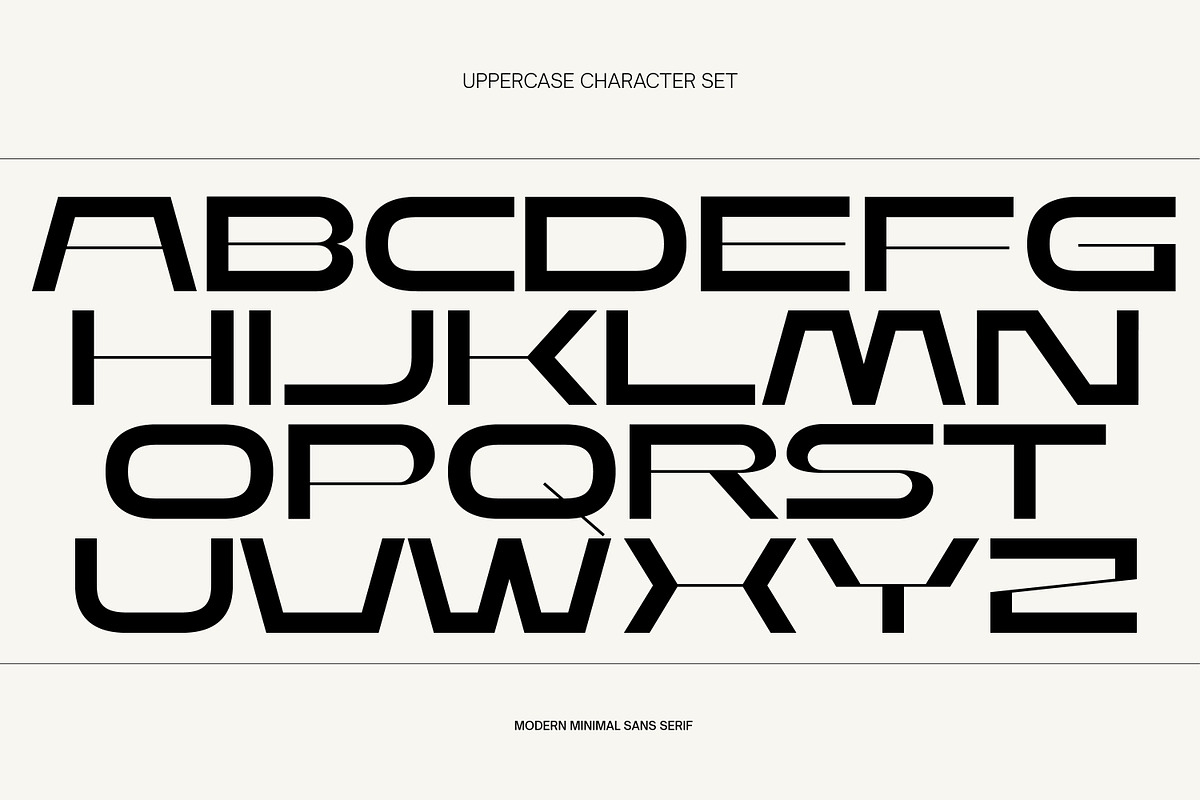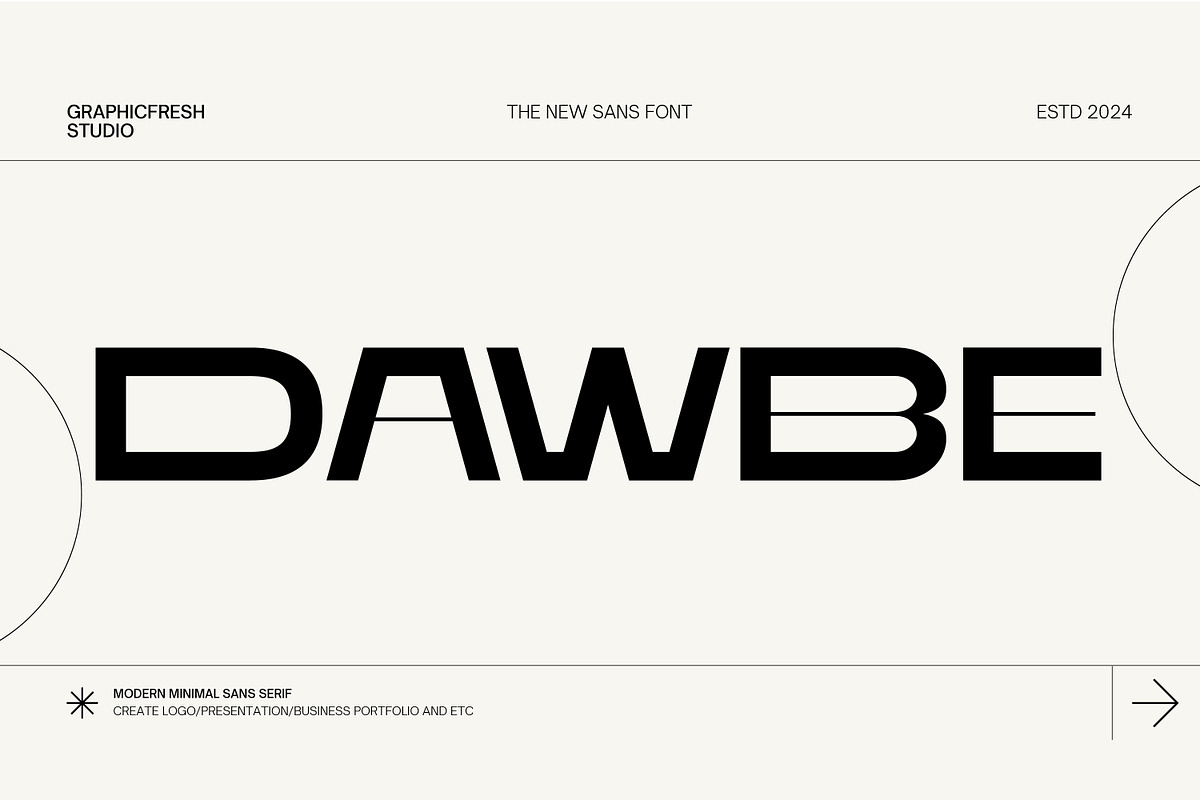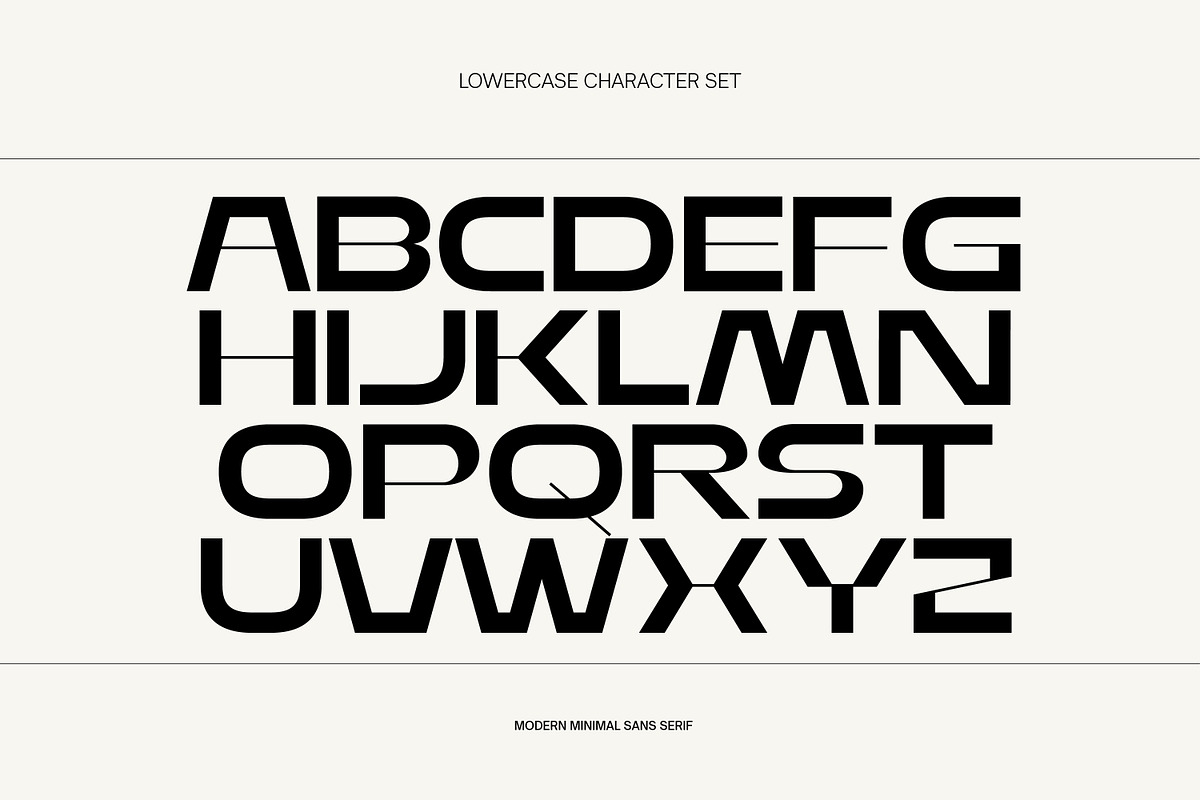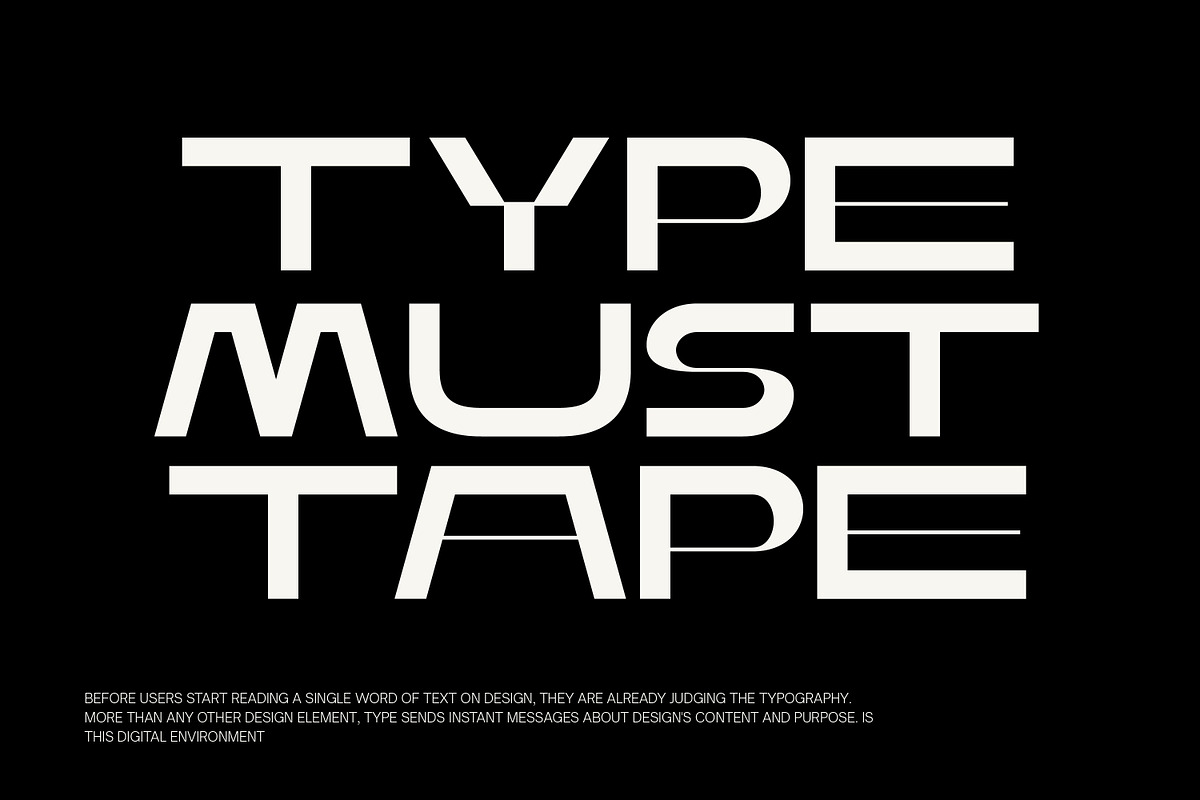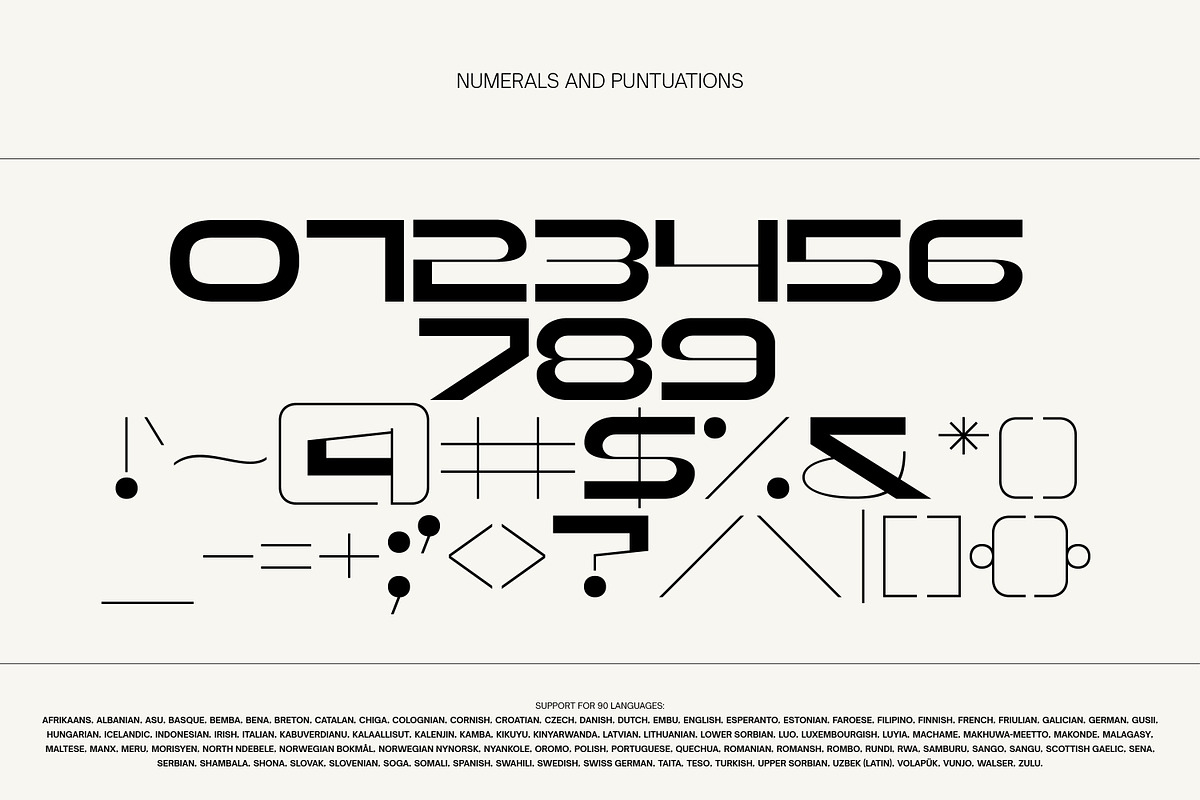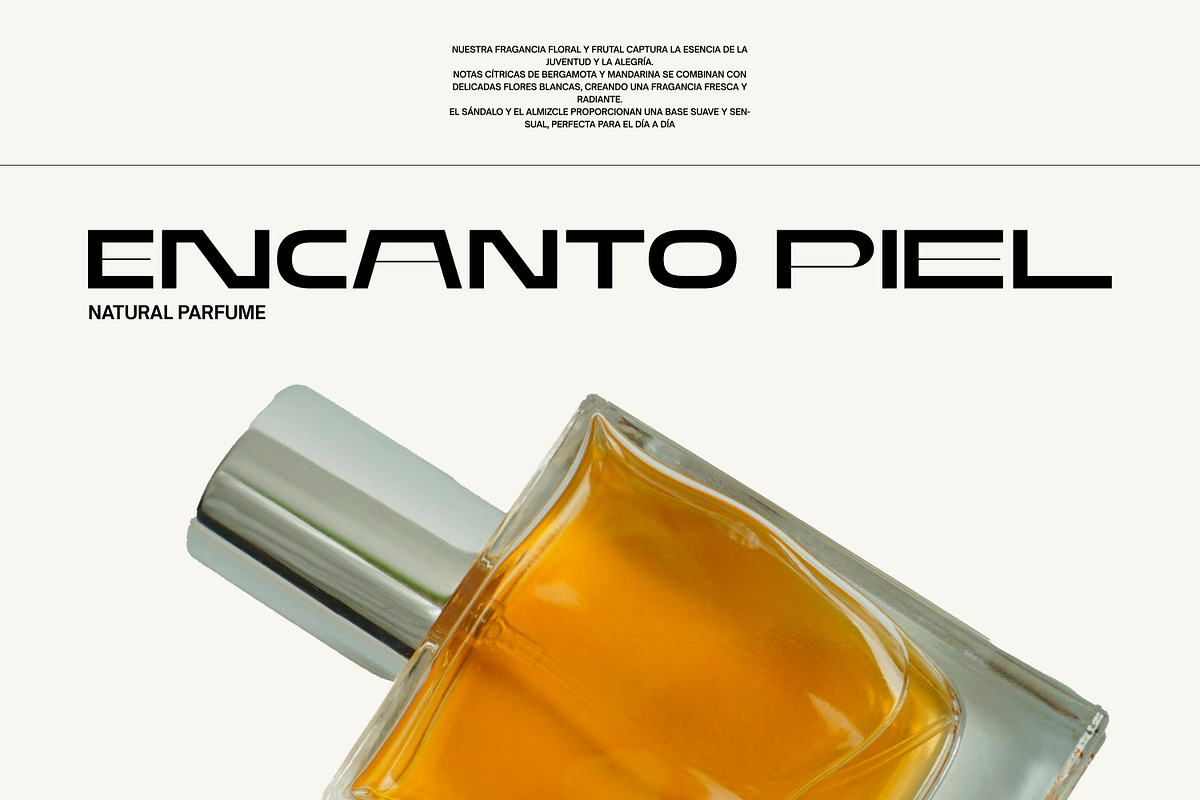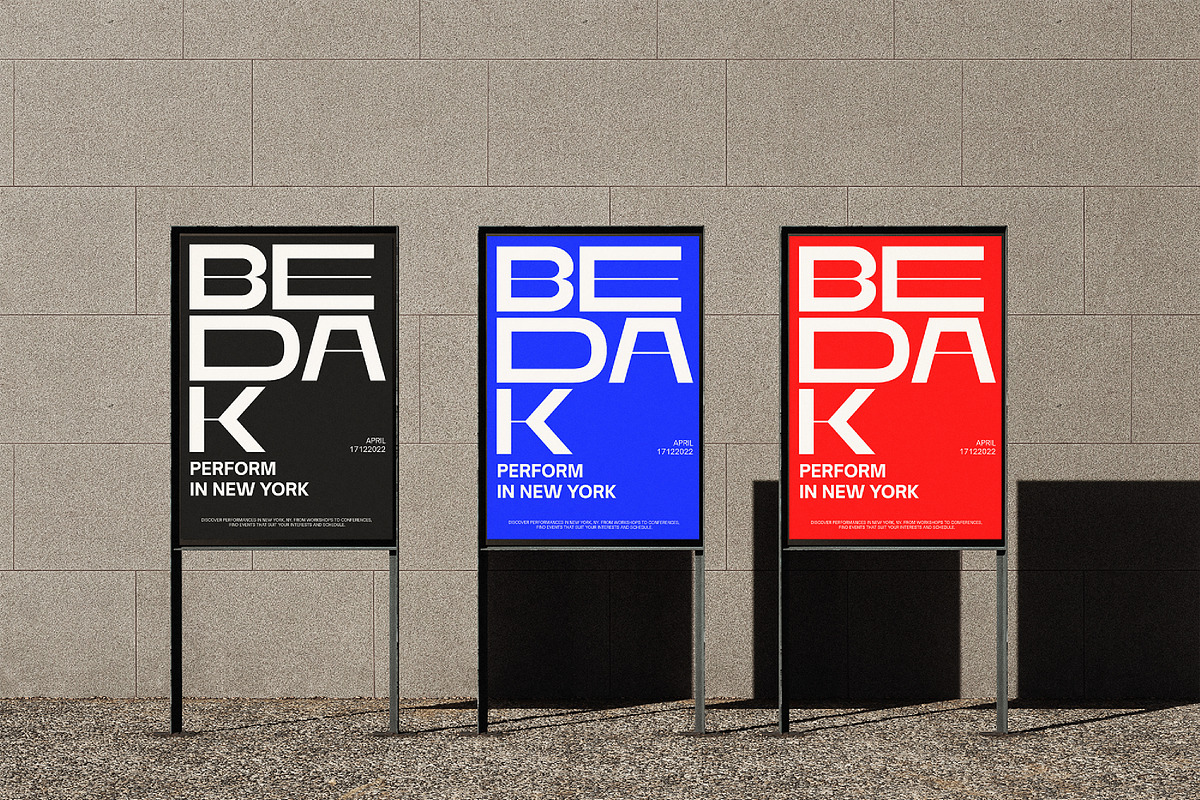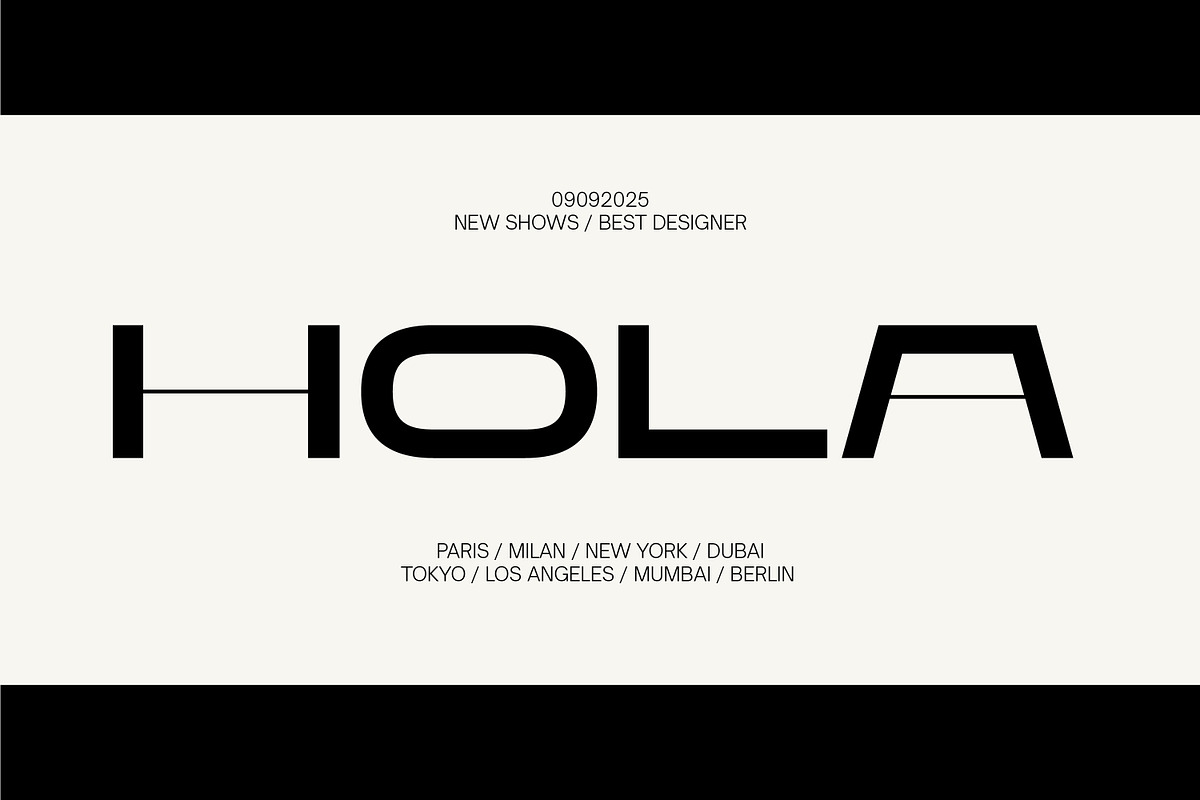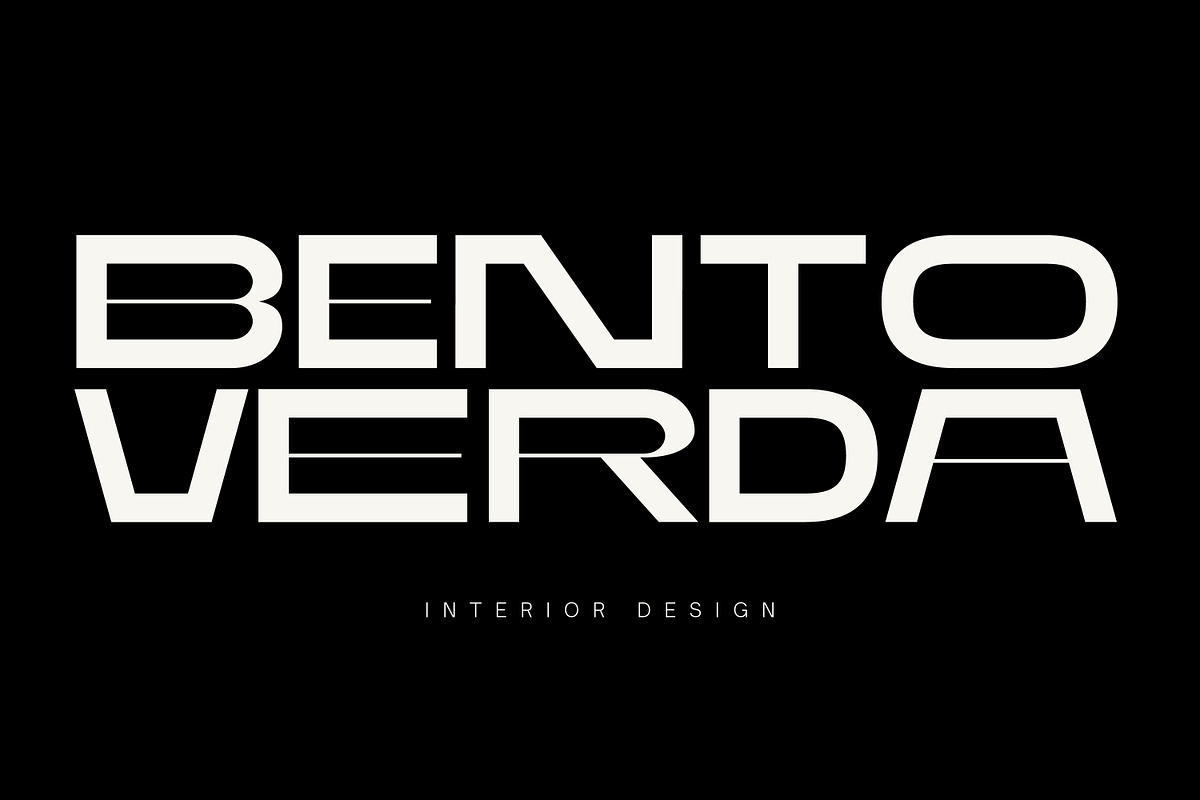
Dawbe - Modern Logo Sans Font
Dawbe is a modern and minimalistic sans-serif typeface designed to convey a sense of boldness, clarity, and sophistication. With its clean, geometric lines and sleek letterforms, it embodies contemporary design principles that make it suitable for a wide range of applications. Whether used in creating logos, presentations, business portfolios, or other branding materials, "Dawbe" delivers a professional and stylish aesthetic that aligns perfectly with modern trends.
This versatile font is not only crafted for exceptional readability and visual impact but also supports over 90 languages, making it a truly global choice for designers. Its multilingual capability ensures that your creative projects can reach audiences worldwide, maintaining consistency and elegance across diverse linguistic needs.
Dawbe stands out as the perfect tool for those looking to combine minimalism with functionality, offering a distinctive and memorable identity for both personal and professional use.